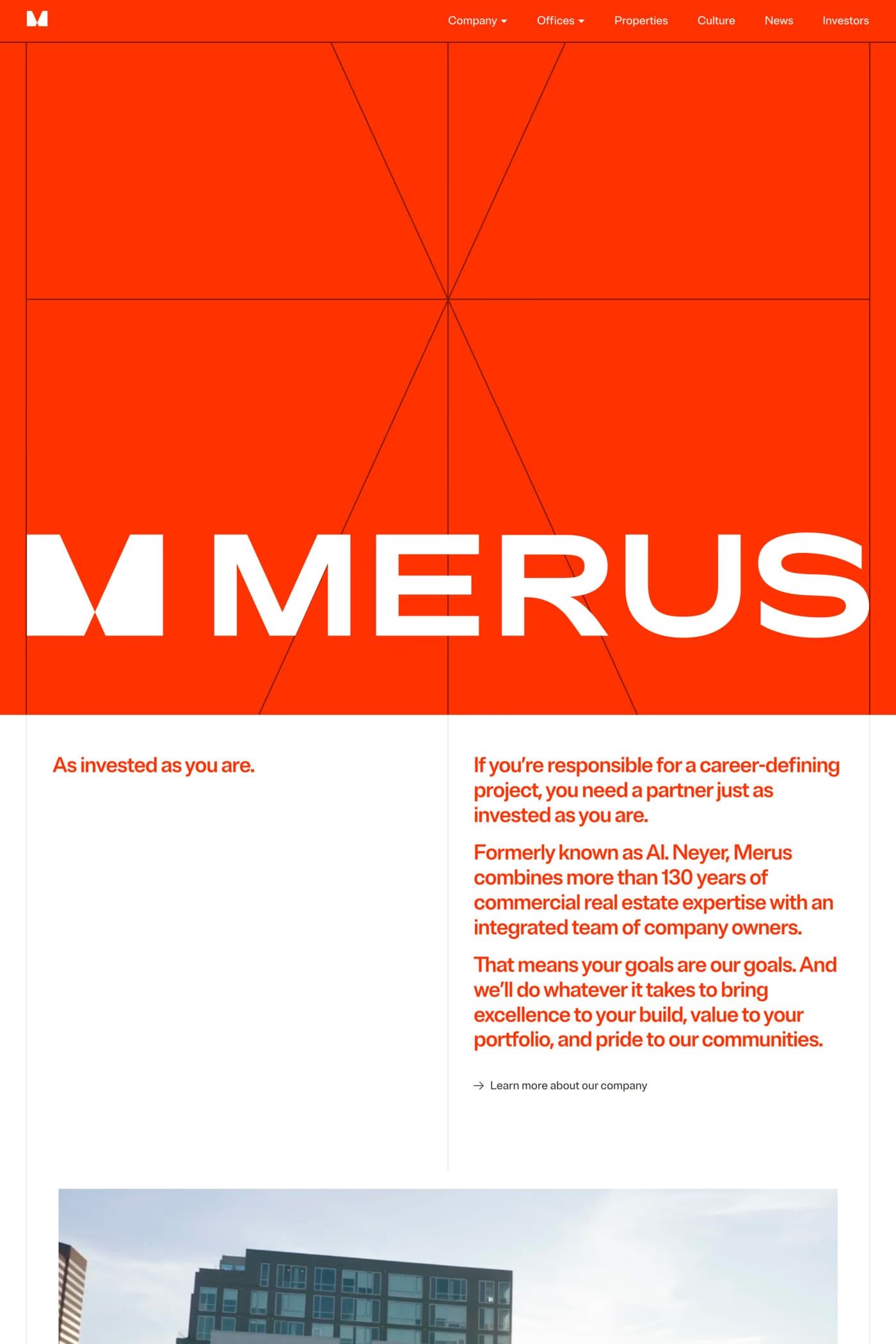
The main goal, when designing Brut Grotesque, was to give Bureau Brut a thoroughly functional typographic signature. The typeface’s unassuming features allow it to convey with ease the creative ideas underpinning every answer to every brief. Now it can become the partner that will never let you down: a typeface which is as straightforward as it is efficient.